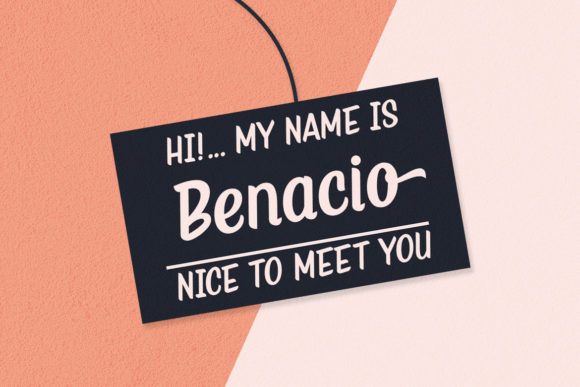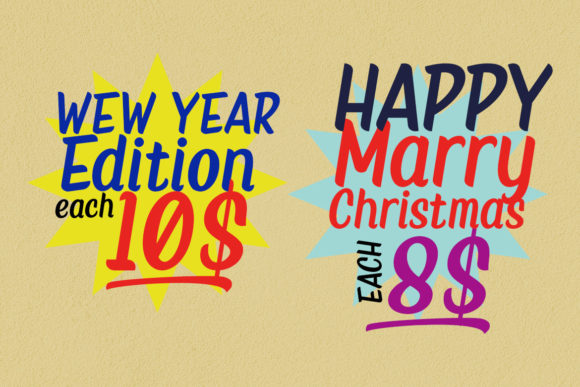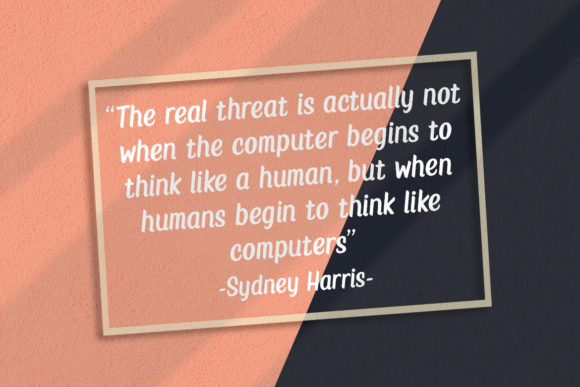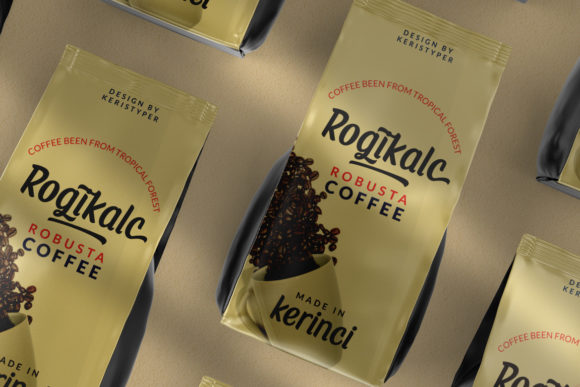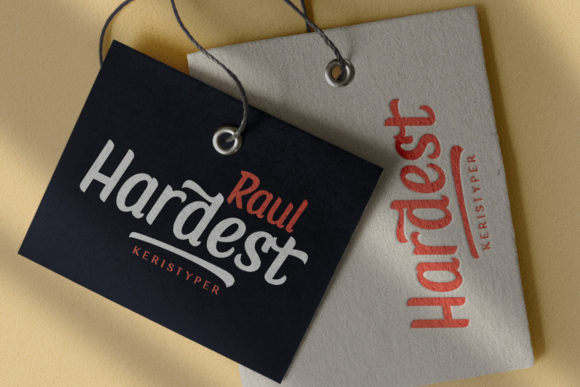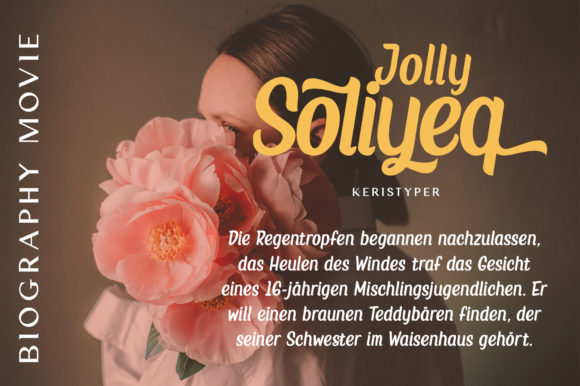
Meet Your New Favorite Font: Benacio Font
Have you ever sat in front of a blank canvas, staring at a blank screen, and wondered what to create next? For designers, this moment is all too familiar. It’s the spark that ignites the fire of creativity, and it’s exactly what happened when the creators of Benacio Font set out to craft a truly unique display font.
Born from a grungy brush, Benacio Font boasts a distinctive calligraphic shape that lends itself to effortless, natural-looking designs. Whether you’re working on a logo, a poster, or a social media campaign, Benacio Font’s versatility will make it your go-to choice for achieving a simple yet striking visual impact.
What makes Benacio Font truly valuable is its ability to elevate even the most basic designs into something extraordinary. With its handmade charm and effortless style, this font is sure to become a staple in your design toolkit.
- Unique Characteristics: Benacio Font features a unique blend of modern and classic elements, with intricate details and ornaments, making it suitable for a wide range of applications, including luxury branding, high-end packaging, and sophisticated web design.
Benacio Font Review
Overall, I was quite impressed with the Benacio Font, especially in terms of its aesthetic appeal. ✨ The font’s sleek and modern design makes it perfect for a wide range of applications, from digital interfaces to print materials. Its clean lines and rounded edges give it a friendly and approachable feel that’s hard to resist.
Here are some of the things I liked about the Benacio Font:
- ✨ Wide range of weights and styles: Benacio Font comes with a variety of weights, from light to bold, making it easy to find the perfect fit for your design needs.
- ✨ Excellent legibility: The font’s clean design and carefully crafted letterforms make it easy to read, even at small sizes.
- ✨ Versatile: Benacio Font works well in both digital and print applications, making it a great choice for designers who need to work across multiple platforms.
- ⚠️ Limited language support: Benacio Font may not support certain languages or character sets, which could be a limitation for designers working on projects with diverse language requirements.
- ⚠️ Not ideal for extreme sizes: While Benacio Font looks great at most sizes, it may not be the best choice for extremely large or small text sizes, where it can become blurry or difficult to read.
Overall, I’d say that the Benacio Font is a solid choice for designers looking for a modern and versatile font. While it may have some limitations, its strengths make it a great addition to any design toolkit.
Benacio Font is ideal for creating elegant and sophisticated designs, making it perfect for wedding invitations, luxury brand logos, and high-end marketing materials.
Benacio Font is ideal for creating high-end designs that require a touch of elegance and sophistication, making it perfect for fashion brand logos, luxury packaging, and high-end advertising materials.
Benacio Font is ideal for creating professional and sophisticated presentations, making it perfect for business pitches, corporate reports, and educational materials.
Some tips for getting the most out of Benacio Font include:
- Use it for headings and titles to add a touch of elegance.
- Pair it with simple backgrounds to let the font take center stage